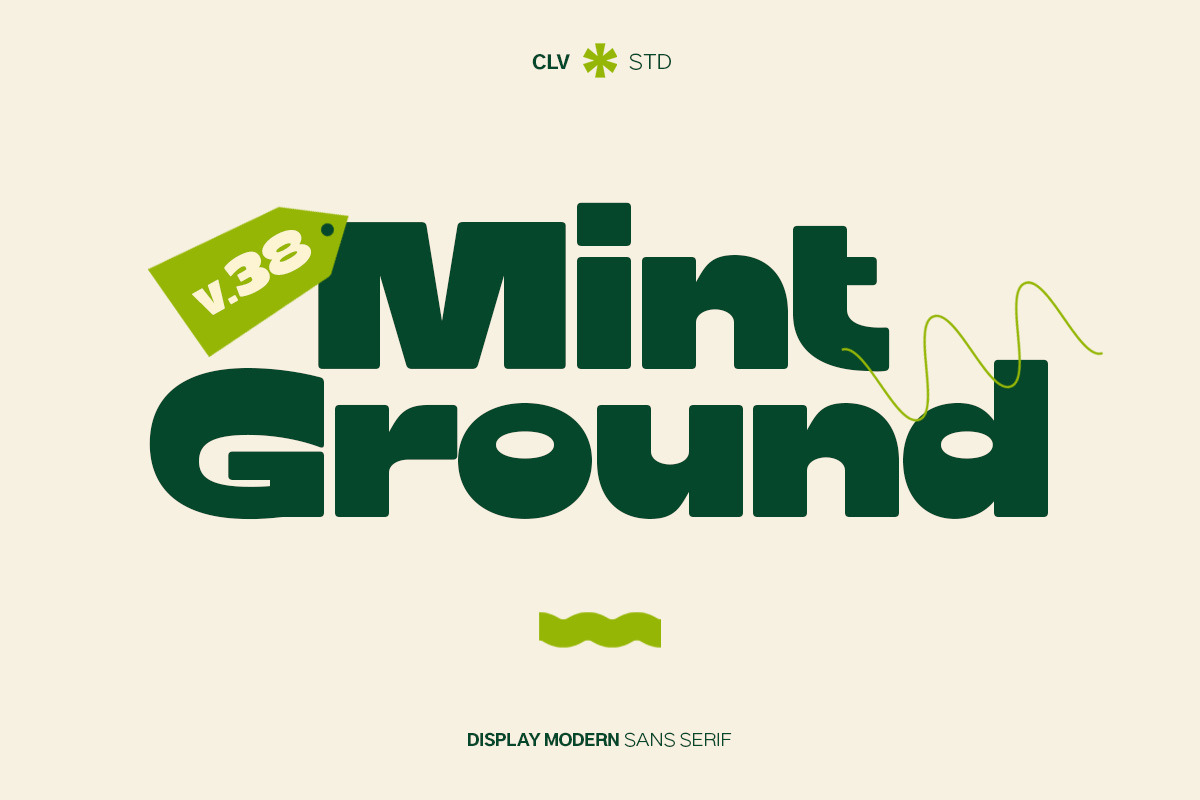
Mint Ground | Modern Typeface
Proudly present Mint Ground Display Modern Sans Serif Typeface
A chunky, funky, loud, and cutely proud kinda font. Mint Ground is playful, and bold while not being shouty with its soft corner. It's the kinda font that looks like you wanna give it a big hug.